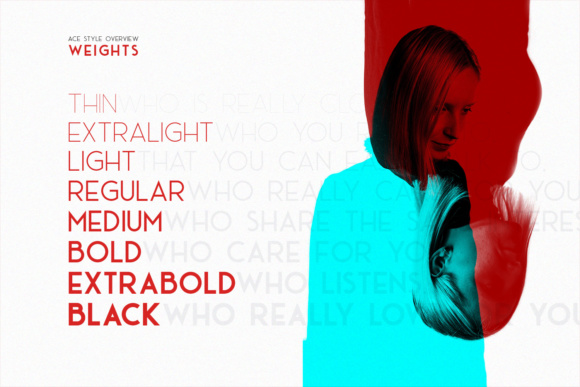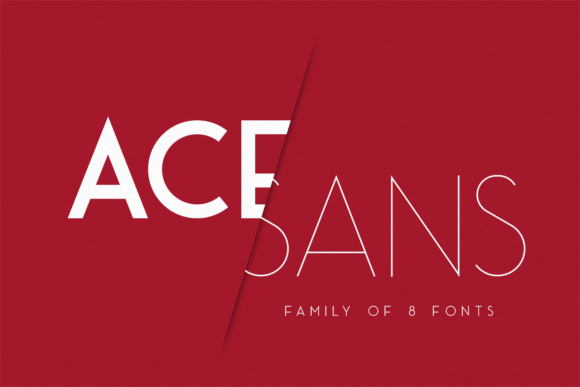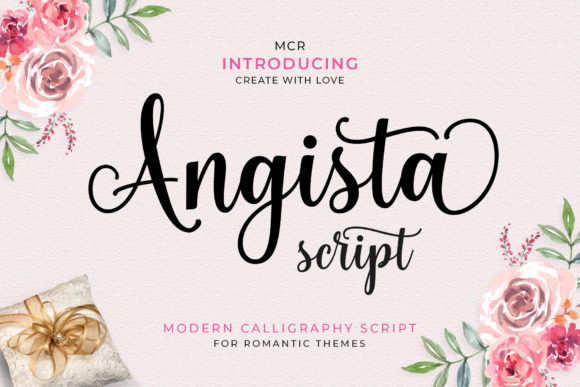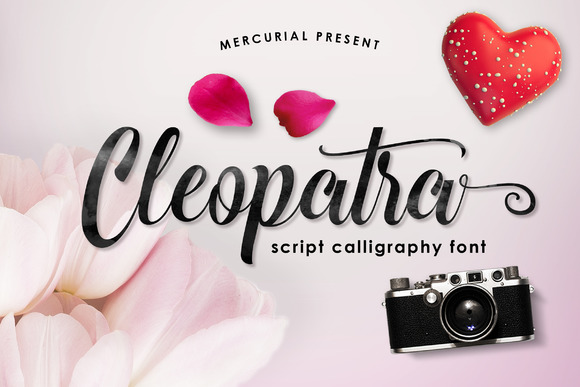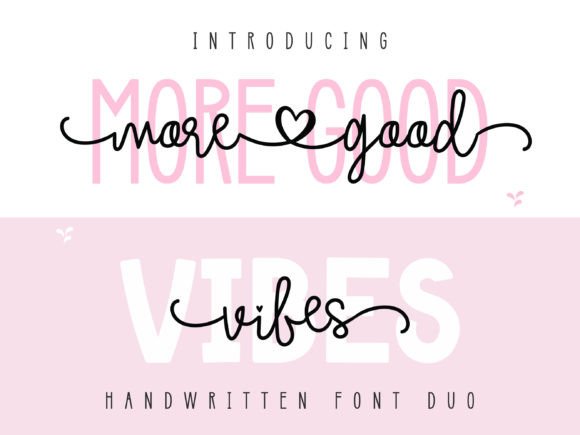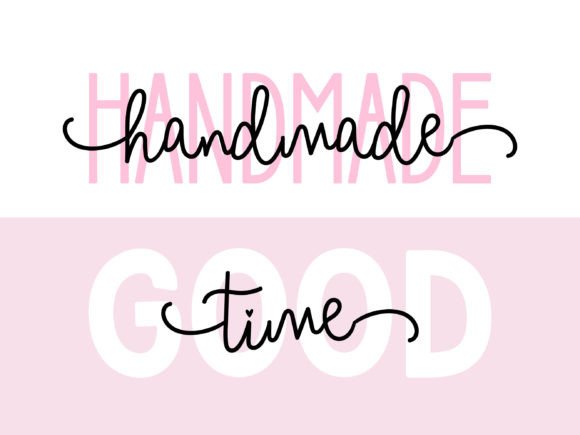
20+ Best Fonts on Creative Fabrica for Canva (Designer’s Choice-2026 Guide)
Looking to level up your digital product designs, but tired of using the same generic, overused system typefaces? Sourcing custom typography is the ultimate designer shortcut to making your layouts look premium and expensive.
In this ultimate guide, I have curated the best fonts on creative fabrica for canva to help you transform your planners, aesthetic Notion dashboards, and social media templates into high-converting assets.
Best Elegant & Luxury Serif Fonts on Creative Fabrica
When it comes to high-end branding, digital products that sell for premium prices, or aesthetic Amazon KDP book covers, Serif fonts are undisputed royalty. Standard fonts like Times New Roman or even Canva’s built-in Playfair Display look generic because everyone uses them. If you want your digital assets to look like a luxury magazine or a high-end boutique storefront, you need custom typography.
Sourcing premium fonts for branding from Creative Fabrica is my ultimate hack for this. Below are my top 5 absolute favorite elegant serifs that will instantly elevate your Canva designs from amateur to high-fashion status.
👑 Part 1: Best Elegant & Luxury Serif Fonts
• 1. Voices Miracle – Best for editorial drama and high-contrast luxury branding.
• 2. Vintage Script – Best for cozy retro nostalgia and custom stationery accents.
• 3. Grandeur – Best for clean lines, minimalist frames, and “Quiet Luxury” vibes.
• 4. Magnolia – Best for soft, feminine aesthetic kits and wellness brand identities.
• 5. Vogue – Best for bold, high-fashion magazine headers and confident design layouts.
🕺 Part 2: Best Retro, Groovy & Psychedelic Fonts
• 6. Groovy Retro – Best for playful, melt-in-your-mouth 70s apparel designs.
• 7. Retro Signature – Best for thick, heavy letterforms and easy vinyl cutting on Cricut.
• 8. More Good Vibes – Best for effortless font pairing and warm, personal crafter projects.
• 9. Vintage Party – Best for hard-hitting statement titles, text gradients, and drop-shadows.
• 10. Sunkissed Tropics – Best for breezy, whimsical coastal aesthetics with an editorial touch.
✨ Part 3: Best Aesthetic Script & Handwritten Fonts
• 11. Angista Script – Best for budget-friendly premium elegance and delicate calligraphy overlays.
• 12. Sweet Darling – Best for adding an original, human-craftsman touch to readable text.
• 13. Haearty – Best for fluid, unrestricted cursive layouts layered over minimal backdrops.
• 14. Cleopatra – Best for royal curves, luxury wedding details, and expensive-looking signatures.
• 15. Gratitude – Best for detail-rich thank-you cards and intricate PUA-encoded swashes.
📐 Part 4: Best Modern & Minimalist Sans-Serif Fonts
• 16. Geometrica Sans – Best for flawless multilingual grids and 6 distinct weights with Cyrillic support.
• 17. Nordica – Best for strong runic energy, bold posters, and historic Northern aesthetics.
• 18. Silent Echoes – Best for tall, elongated silhouettes and sophisticated fashion layouts.
• 19. Ace Sans – Best for functional app-like interfaces and advanced Notion dashboard tables.
• 20. Cute Rita – Best for soft minimalist planner headings and chic slimline greeting cards.
• 🎁 BONUS: Minimalist – Best for ultra-airy layouts, clean product covers, and pure typographic simplicity.
1. Voices Miracle — Editorial Drama & High Contrast
Showcase of Voices Miracle typeface, a high-contrast modern serif font on Creative Fabrica. The image displays elegant ligatures, dramatic swashes, and luxury editorial typography style, perfect for Canva branding and luxury social media posts.
Voices Miracle elegant serif font for premium branding and luxury Canva templates design.
If you want your designs to look like they just stepped off the pages of Vogue or a premium design gallery, Voices Miracle is an absolute must-have. This is a high-contrast modern serif that perfectly balances timeless sophistication with a sharp, contemporary edge.
What makes it a total goldmine for Canva creators are the dramatic swashes, gorgeous ligatures, and unique starburst-inspired glyph details that you can unlock instantly (thanks to its PUA encoding). It gives you that high-end, custom-tailored look without needing advanced design skills.
• Best used for: High-fashion branding, editorial magazine headlines, luxury social media bundles, and premium packaging templates.
2. Vintage Script — Nostalgic Retro Vibes